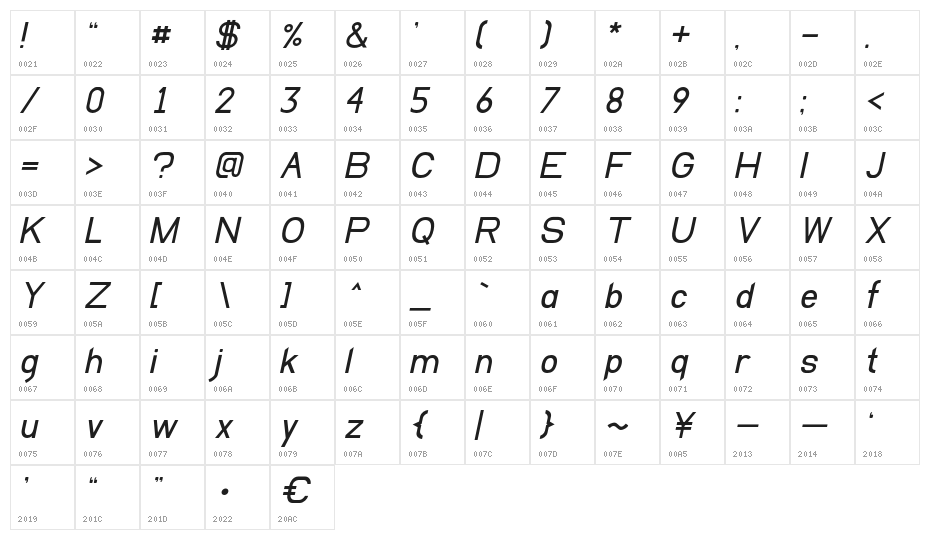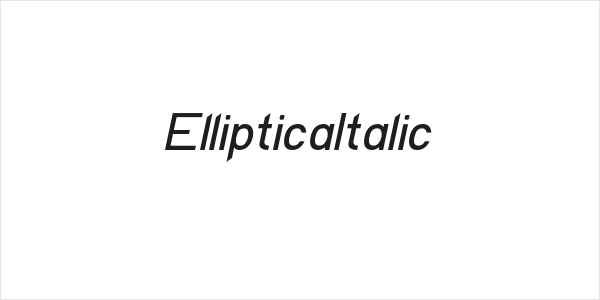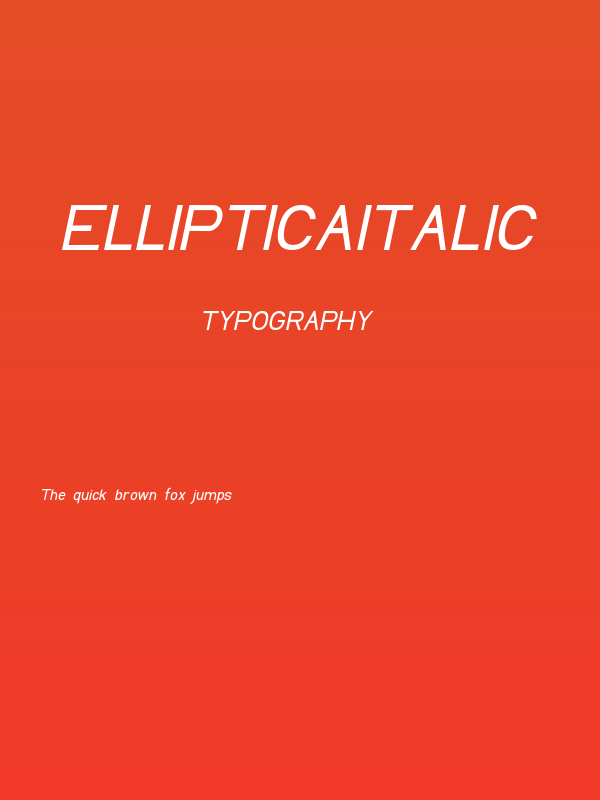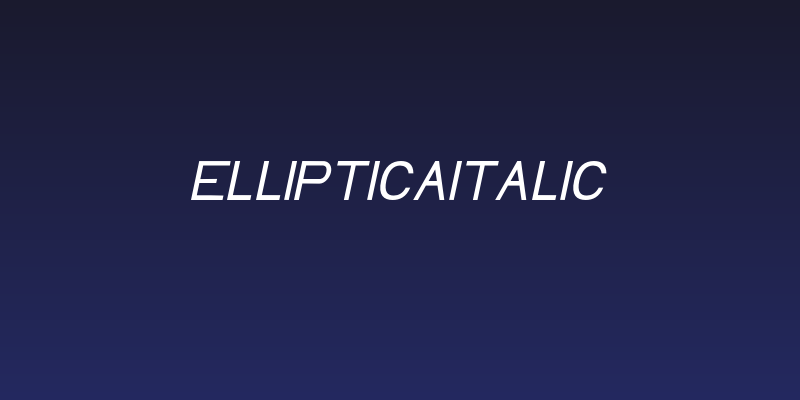
EllipticaItalic Font
EllipticaItalic Description
This font exhibits a sleek and modern design with a distinct italic slant, giving it a dynamic and forward-moving appearance. The characters are clean and streamlined, with a uniform stroke width that maintains consistency across both uppercase and lowercase letters. The numerals and special characters are designed to complement the alphabet, ensuring readability and style. The overall aesthetic is contemporary, making it suitable for a variety of applications where a modern and professional look is desired.
| Proposed Projects | Ideal for branding, advertising, and editorial design where a modern and professional appearance is needed. |